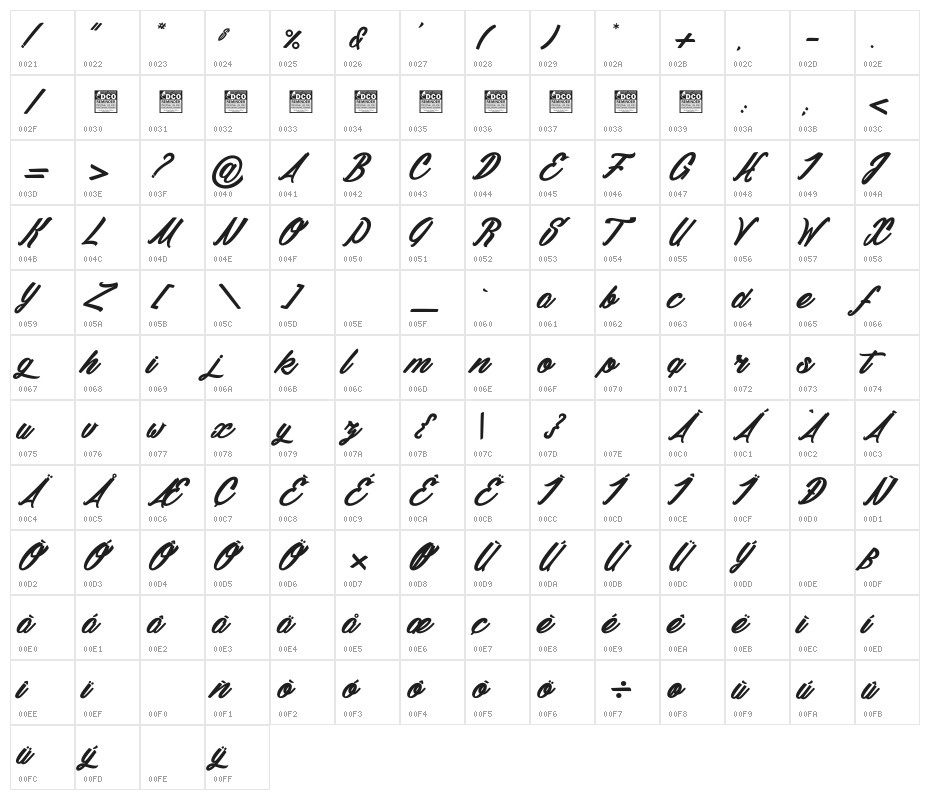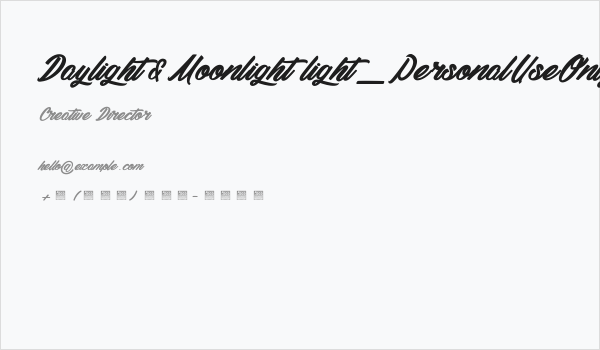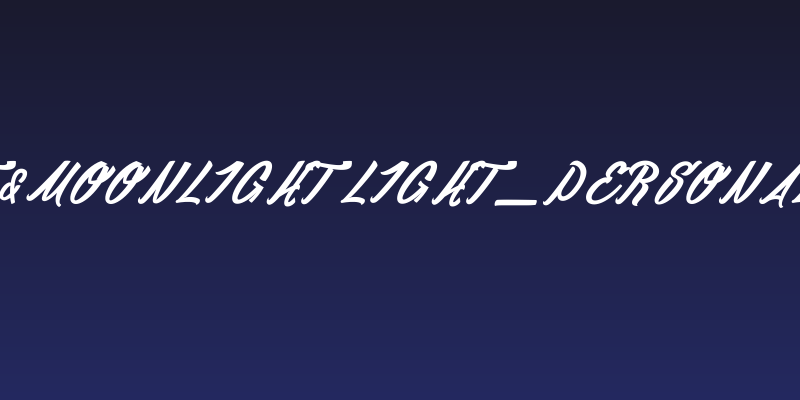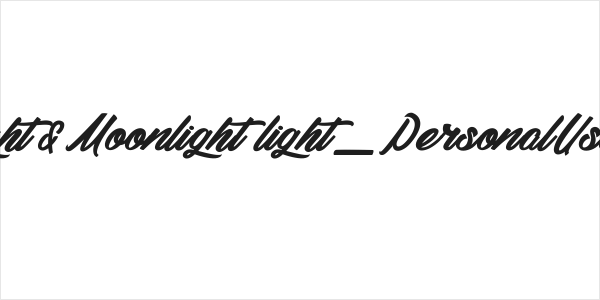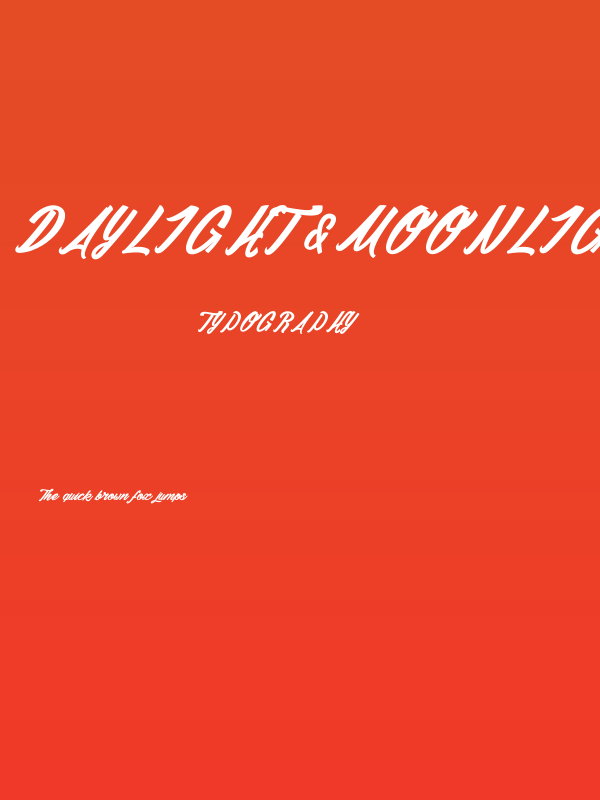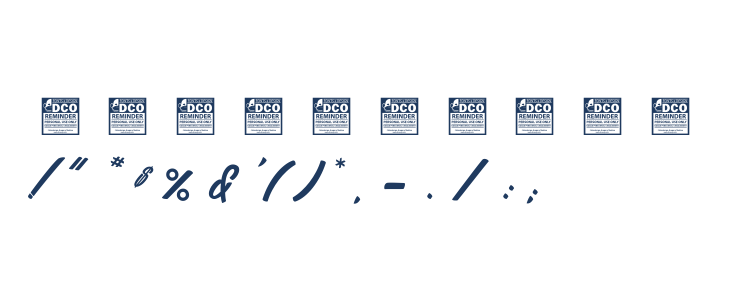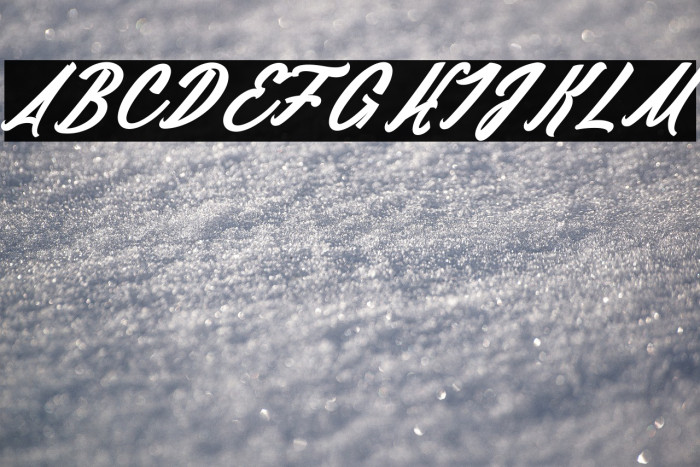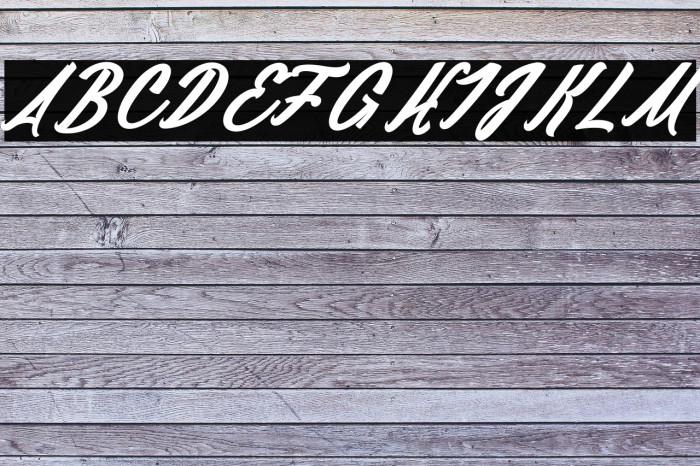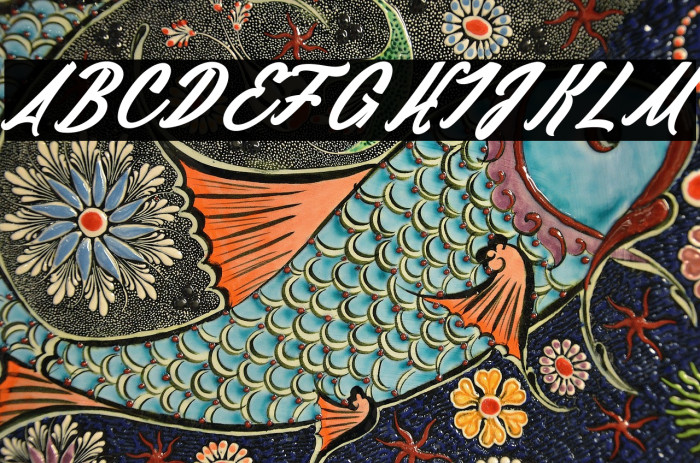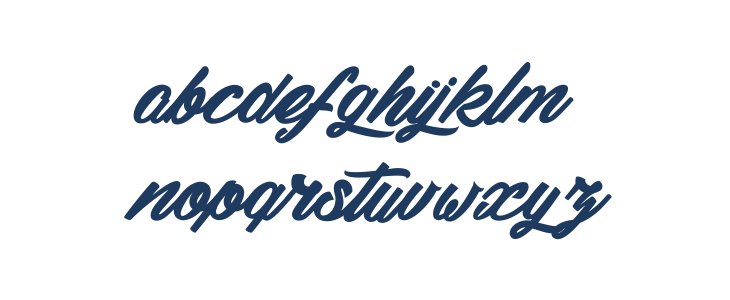
Daylight&Moonlight light_PersonalUseOnly Font
Daylight&Moonlight light_PersonalUseOnly Description
This font features a bold, cursive style with a modern flair. The letters are connected, giving it a flowing and dynamic appearance. The uppercase letters are slightly more elaborate, while the lowercase letters maintain a consistent rhythm. The strokes are thick and uniform, contributing to a strong visual impact. Special characters are designed to complement the overall style, maintaining the same boldness and fluidity. This font is ideal for creating eye-catching designs that require a sense of elegance and movement.
| Proposed Projects | Ideal for branding, logos, invitations, and headlines that require a touch of elegance and boldness. |